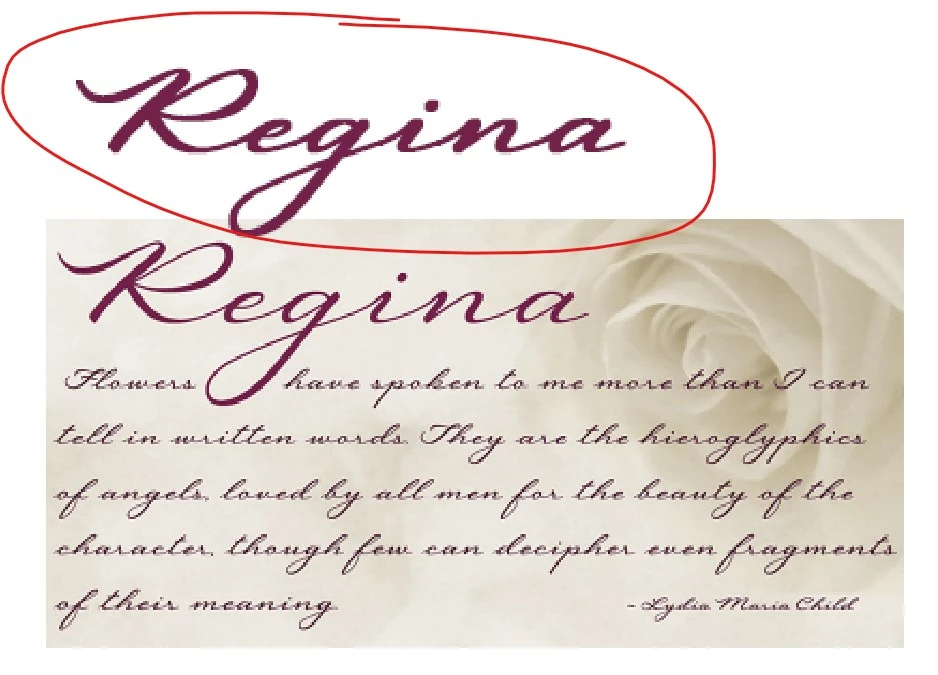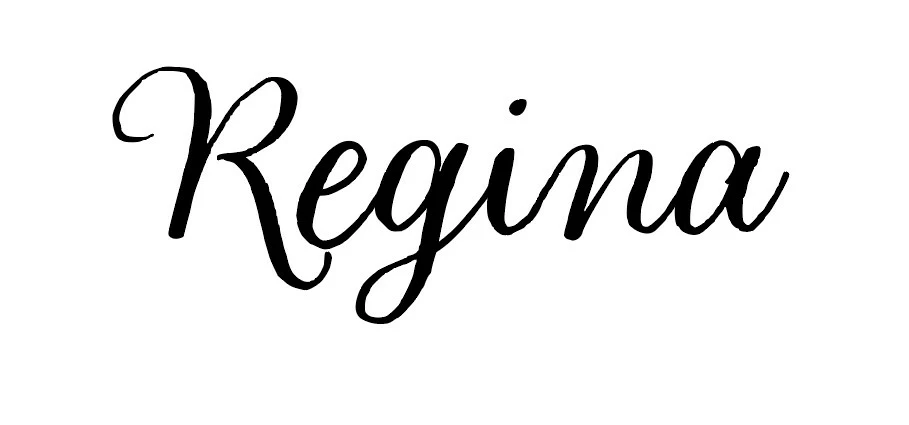
Fonts are not the same as samples
How come when I download a font to Adobe, the Photoshop / Illustrator version does not match the one on the Adobe site?
Another example, the top one is illustrator and the bottom one is photoshop, see how bold and clunky it is in photoshop
If there isn't any layer effects applied to the letters (such as a stroke, outer glow, etc) the only other culprit I can think of is the text layer's anti-aliasing rendering style. This setting is visible in the Character palette and the type bar at top when a text object is selected. The default setting is "Smooth." Some of the other settings might make letters appear bolder, especially at small sizes. The other settings are None, Sharp, Crisp and Strong. I use a Windows PC; there are additional "Windows LCD" and "Windows" settings in the drop down menu.
What about a font that Photoshop alters the cap "i" from sans serif to serif such as Classic Comic? The example is sans but in Photoshop a serif is added.
In the case of Classic Comic there are slight differences between the uppercase and lowercase character sets. Both look like all capitals glyphs. But the uppercase "I" has crossbars at the top and bottom (or techically serifs) while the lowercase "i" does not. The uppercase "U" has a right tail on it while the lowercase "u" does not. Other glyphs have more subtle visual differences between their uppercase and lowercase counterparts. It's all normal:
I would start to worry if the letter glyphs with strangely added serifs were changing to a different typeface.
I think maybe the easiest way to access all the alternate glyphs within the Classic Comic type family is by opening the glyphs panel. You can select individual letters and then click letters in the glyphs panel to apply them into a text string.
Is this issue happening in Photoshop or Illustrator? There is only one style of Regina and it is fairly light in weight. If you're working in Photoshop there may be some kind of effect applied to the type layer. If you're working in Illustrator select the lettering and then open the Appearance panel to see what kinds of effects are applied to the type object.
Hi, I am using photoshop, there are no effects applied at all, I checked the panels. I will test Regina in Illustrator again, however it was the same, see attachment
Regina Photoshop 25pt text